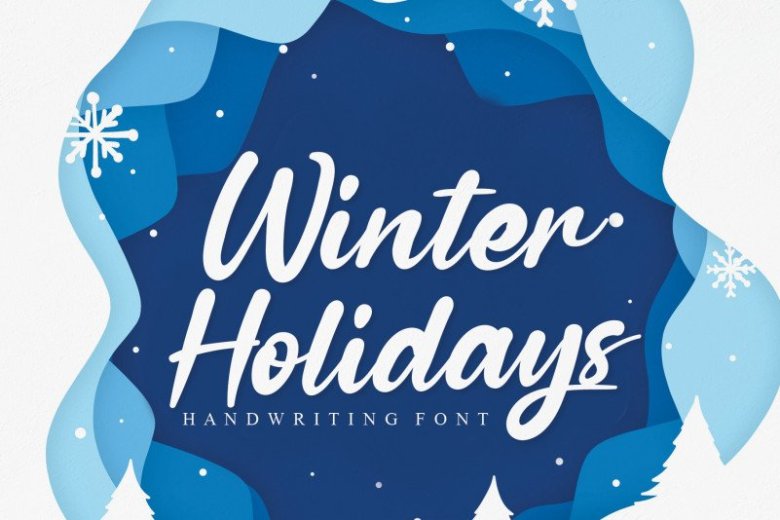
Winter Holidays Script Font
Winter Holidays Script Font is a bold and flowing handwritten font. Fall in love with its completely different and timeless style and use it to create spectacular designs!
The latest style letters are perfect for wall displays, wedding invitations, social media post logos,
advertisements, product packaging, product designs, labels, photography, watermarks, invitations, stationery,
and any project that requires taste handwriting.